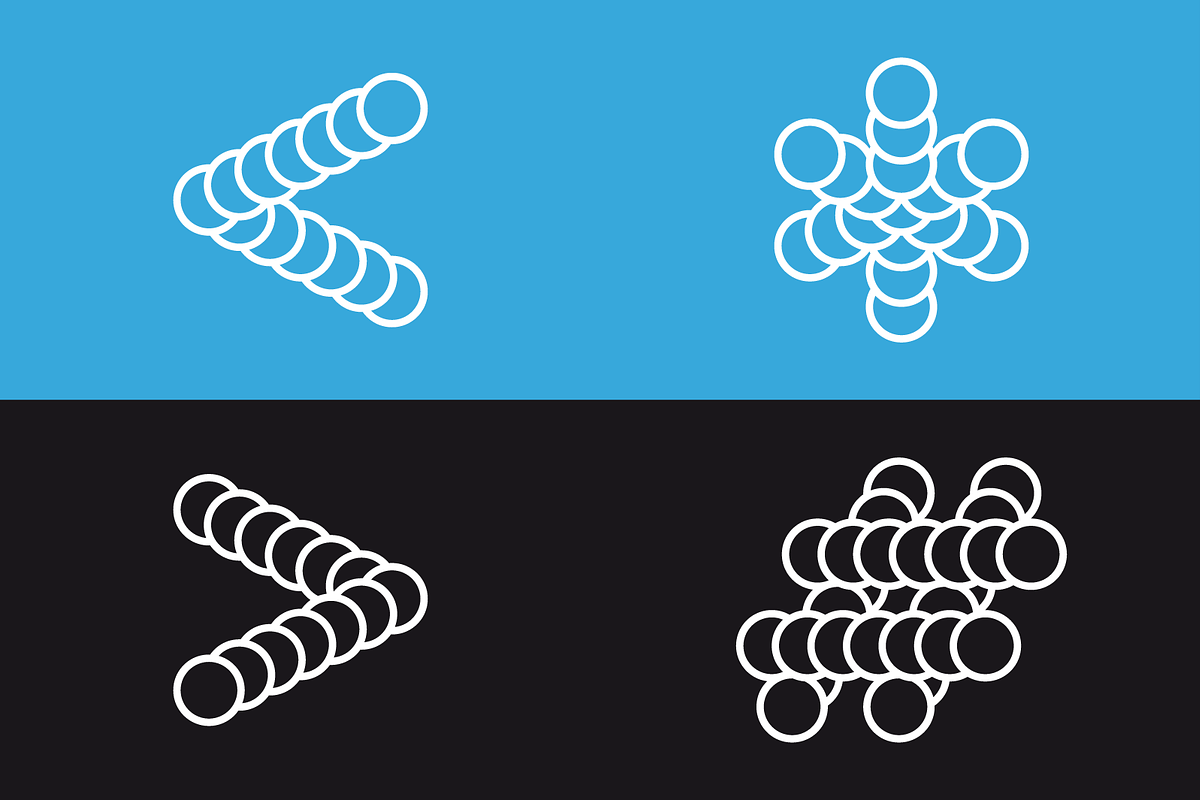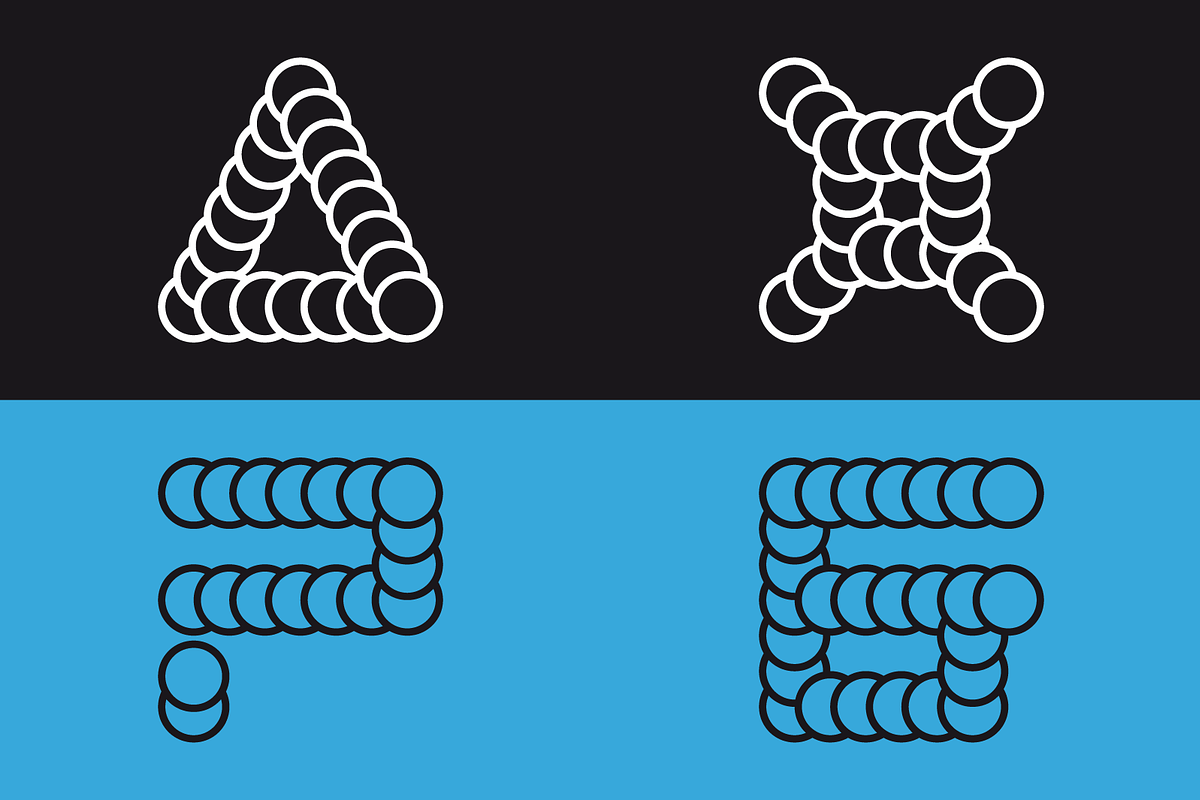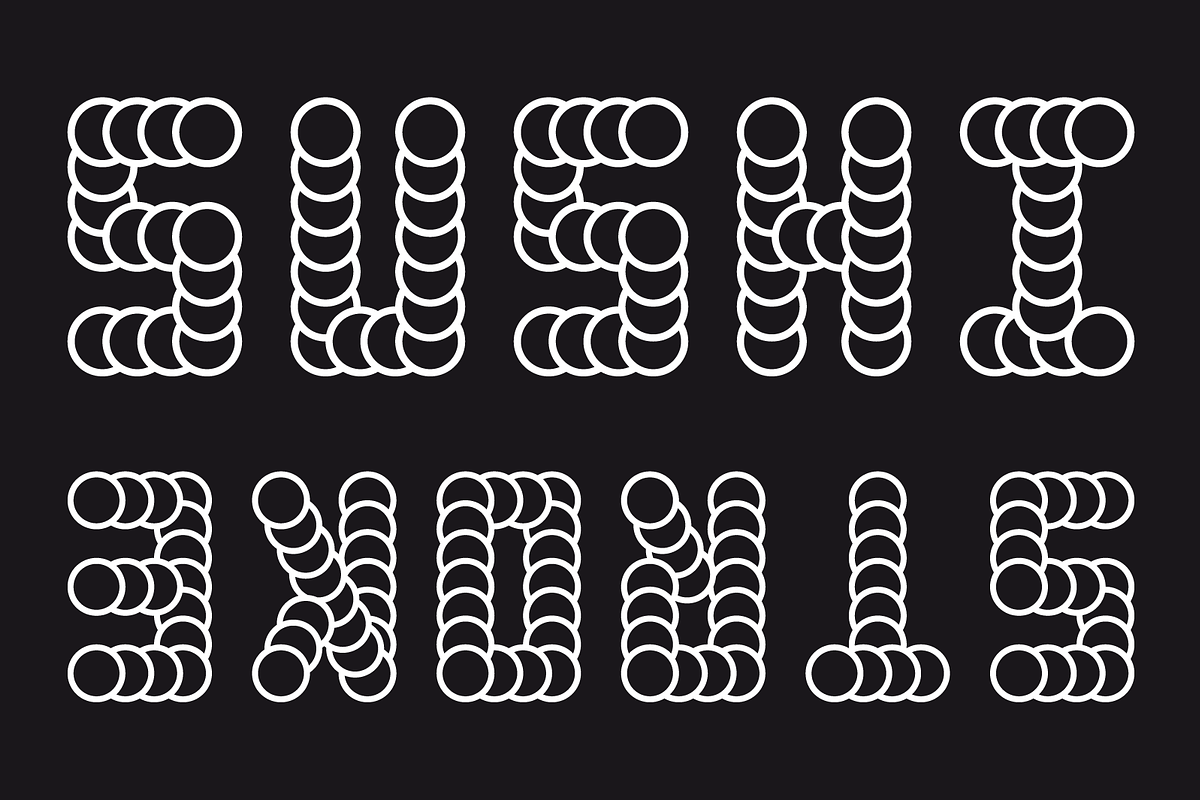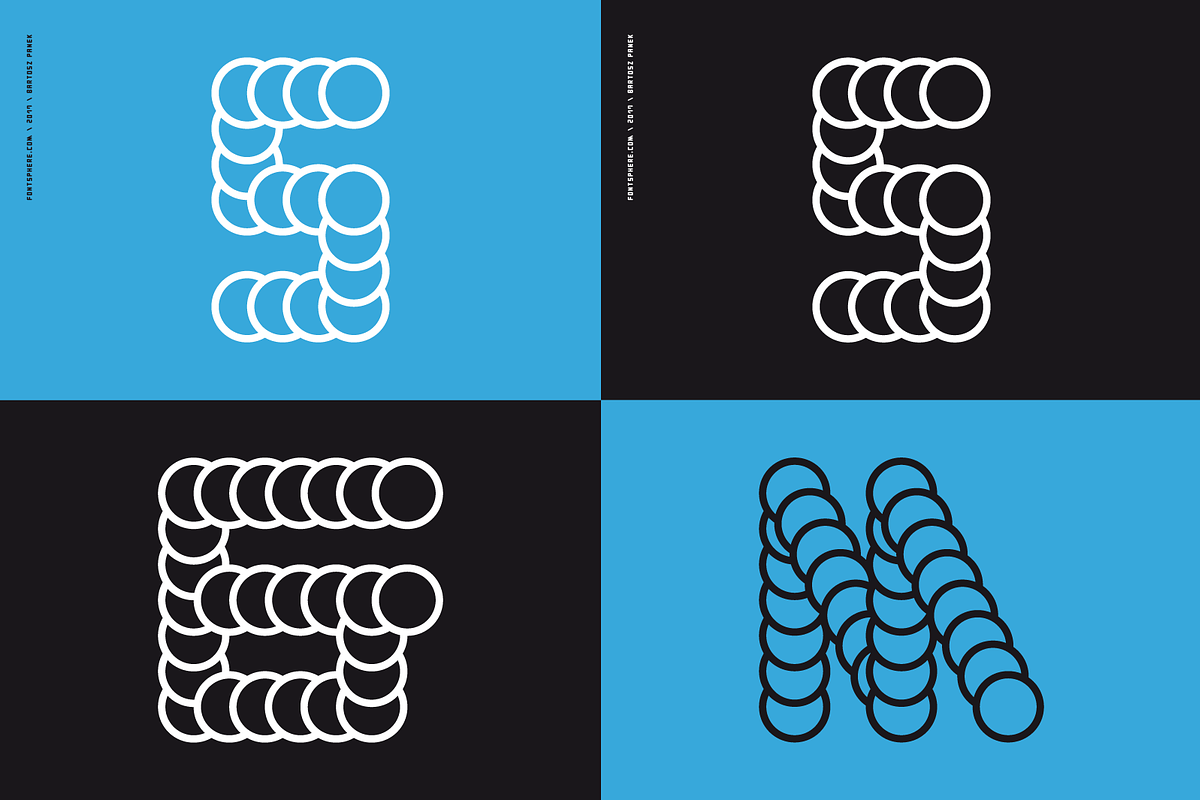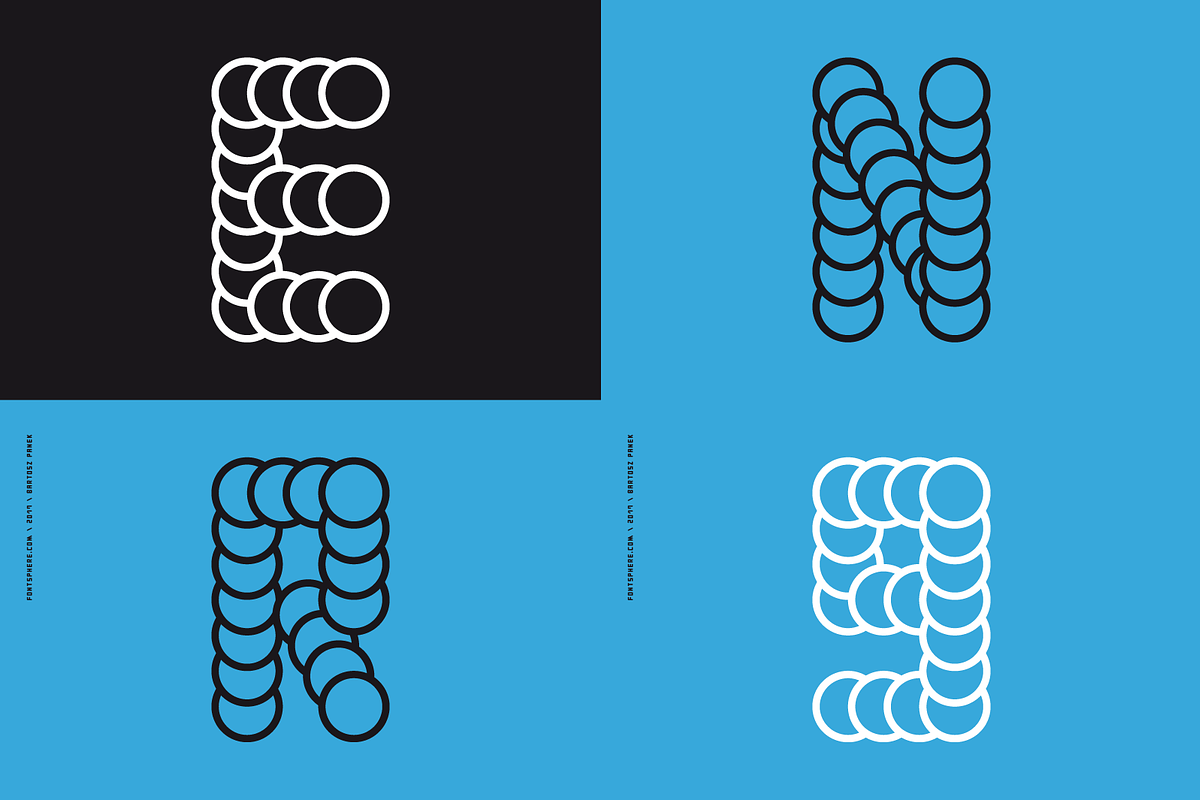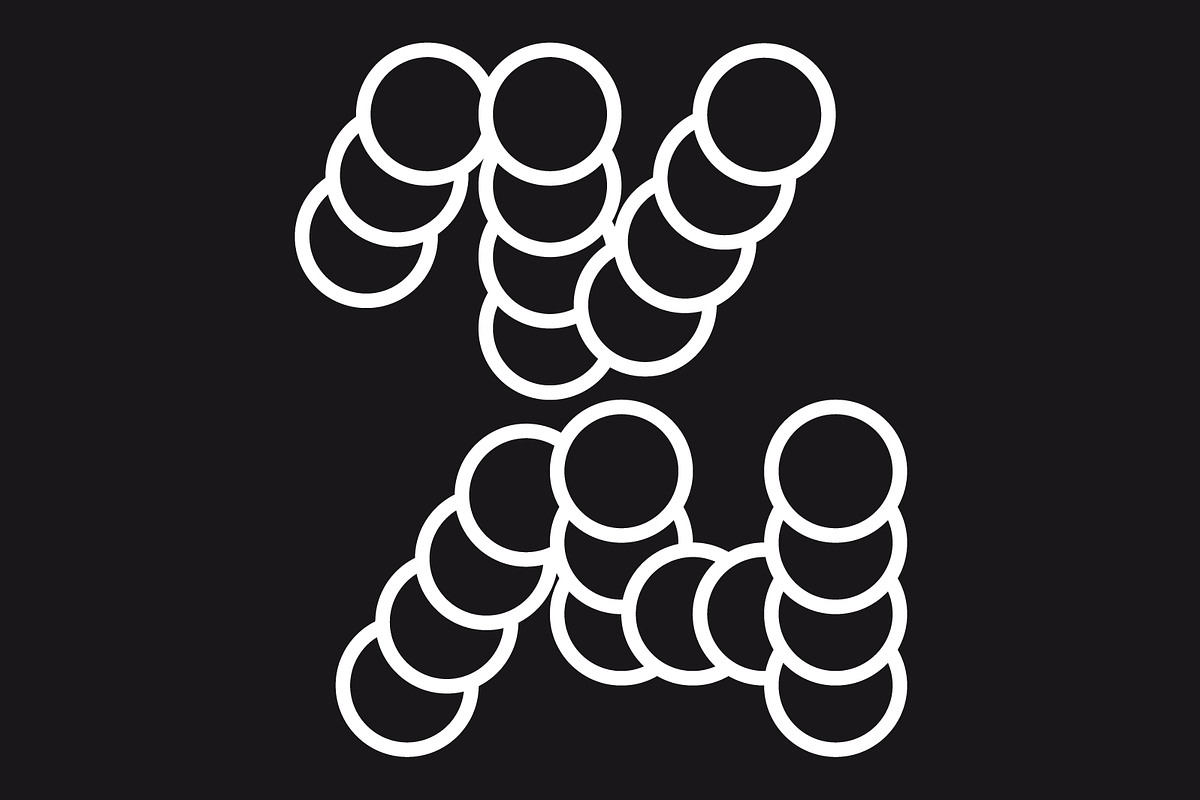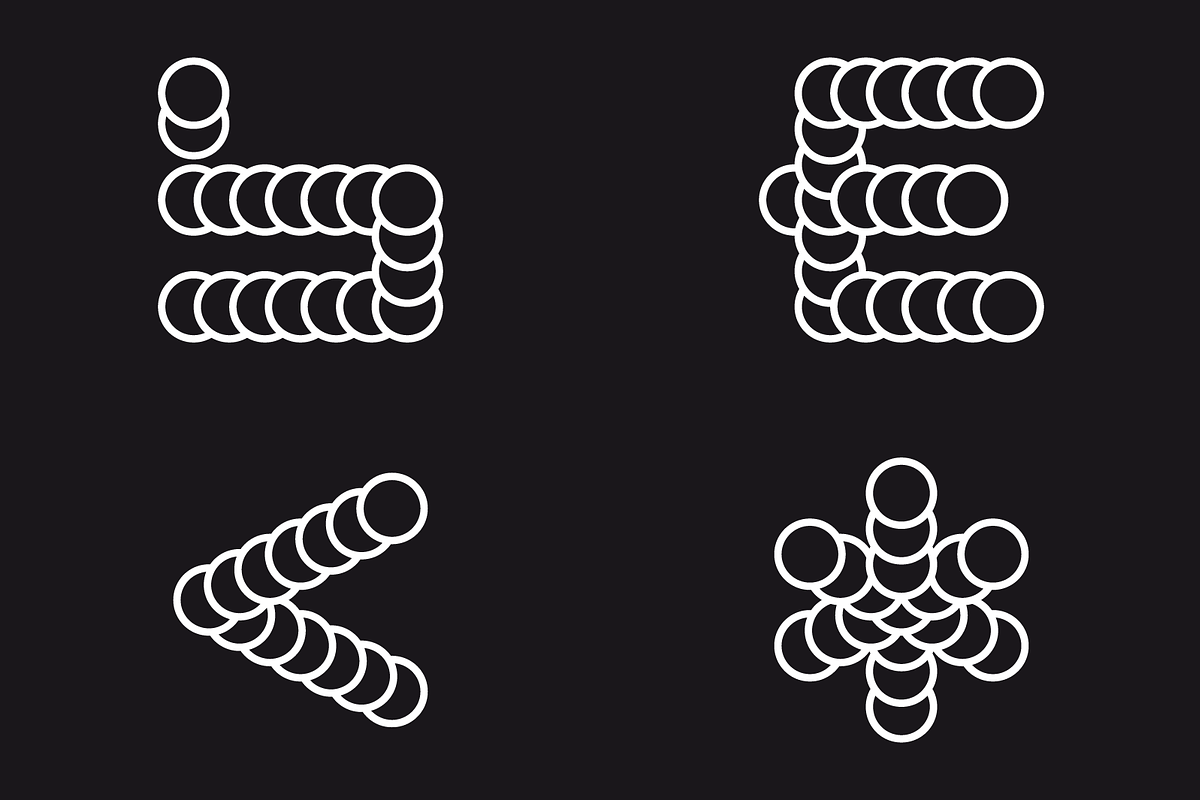
SUSHI Stroke Font - FREE
SUSHI Stroke Font - FREE by Fontsphere is a font selected for branding, posters, packaging, typography.
- A unique font containing uppercase characters, numerals and a large range of punctuation (224 glyphs).
- SUSHI Stroke Stroke
SUSHI Stroke Font - FREE by Fontsphere fits naturally into Branding, posters, packaging, typography.